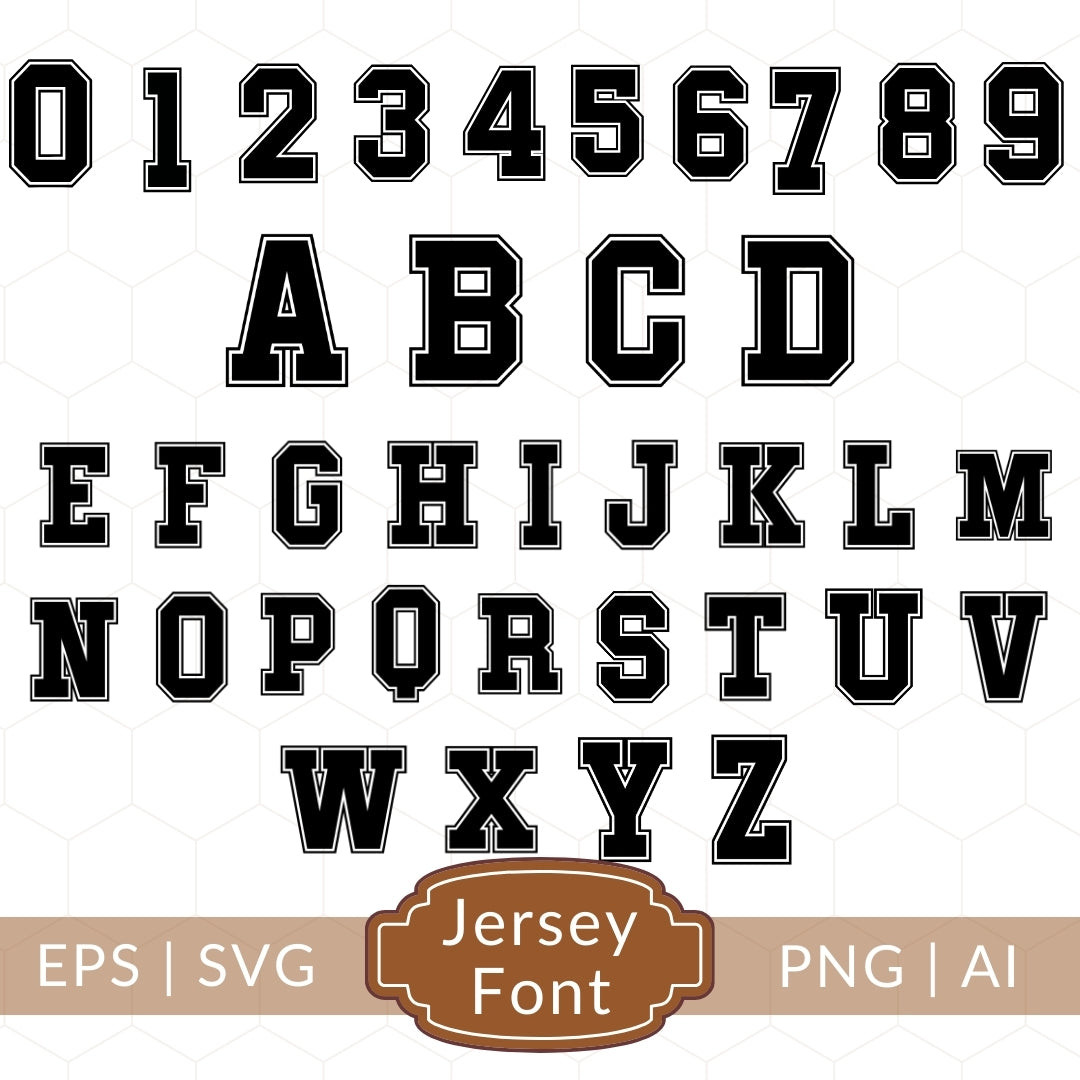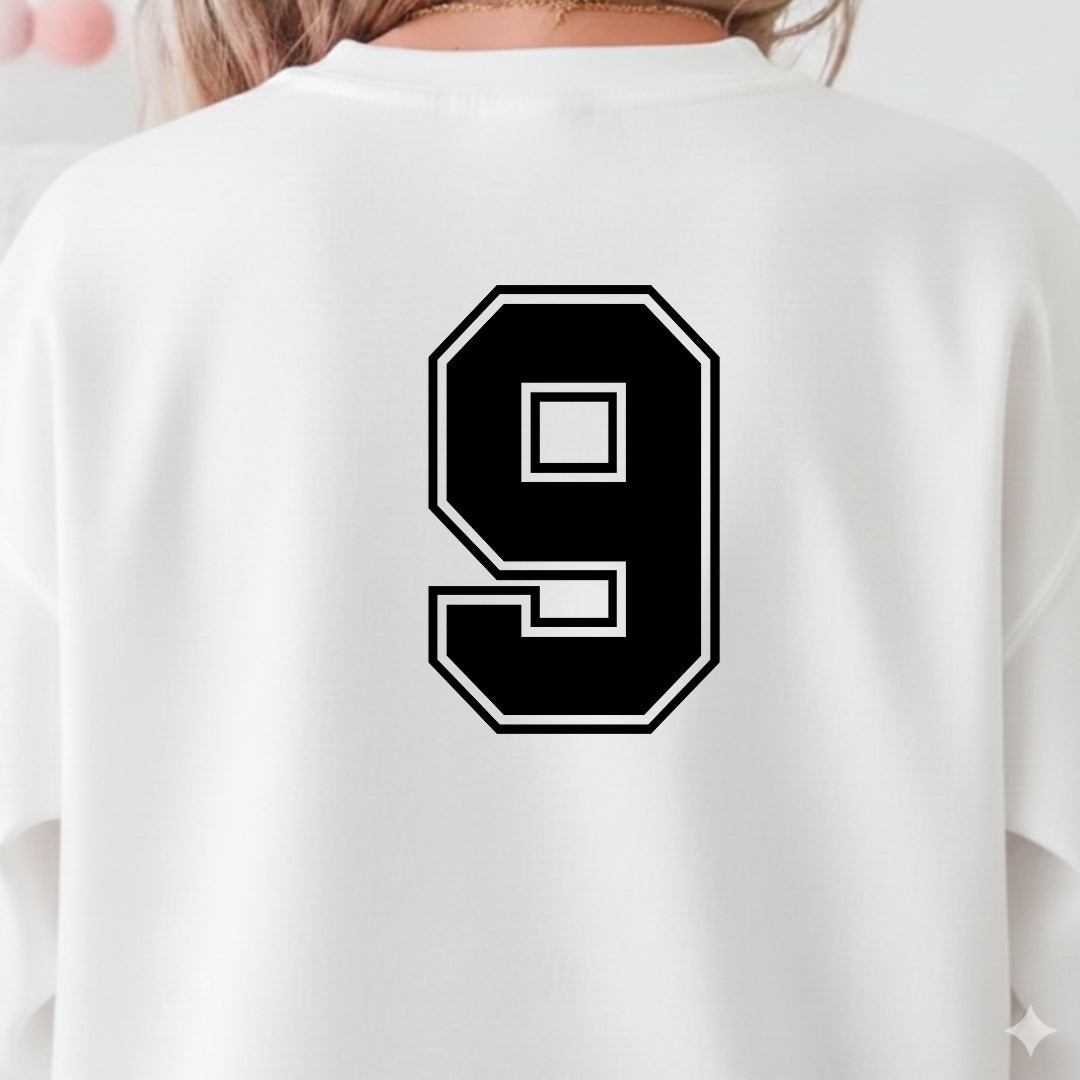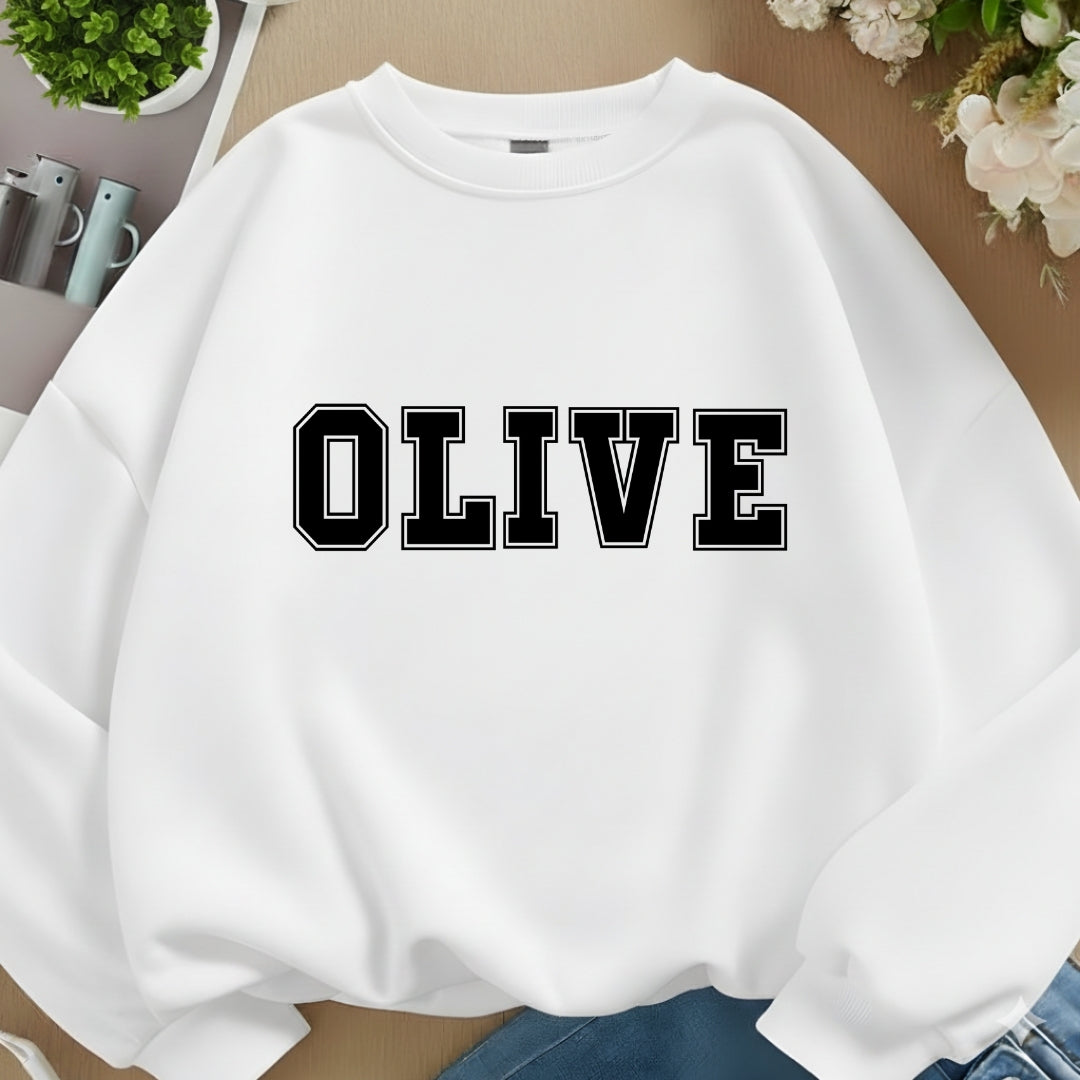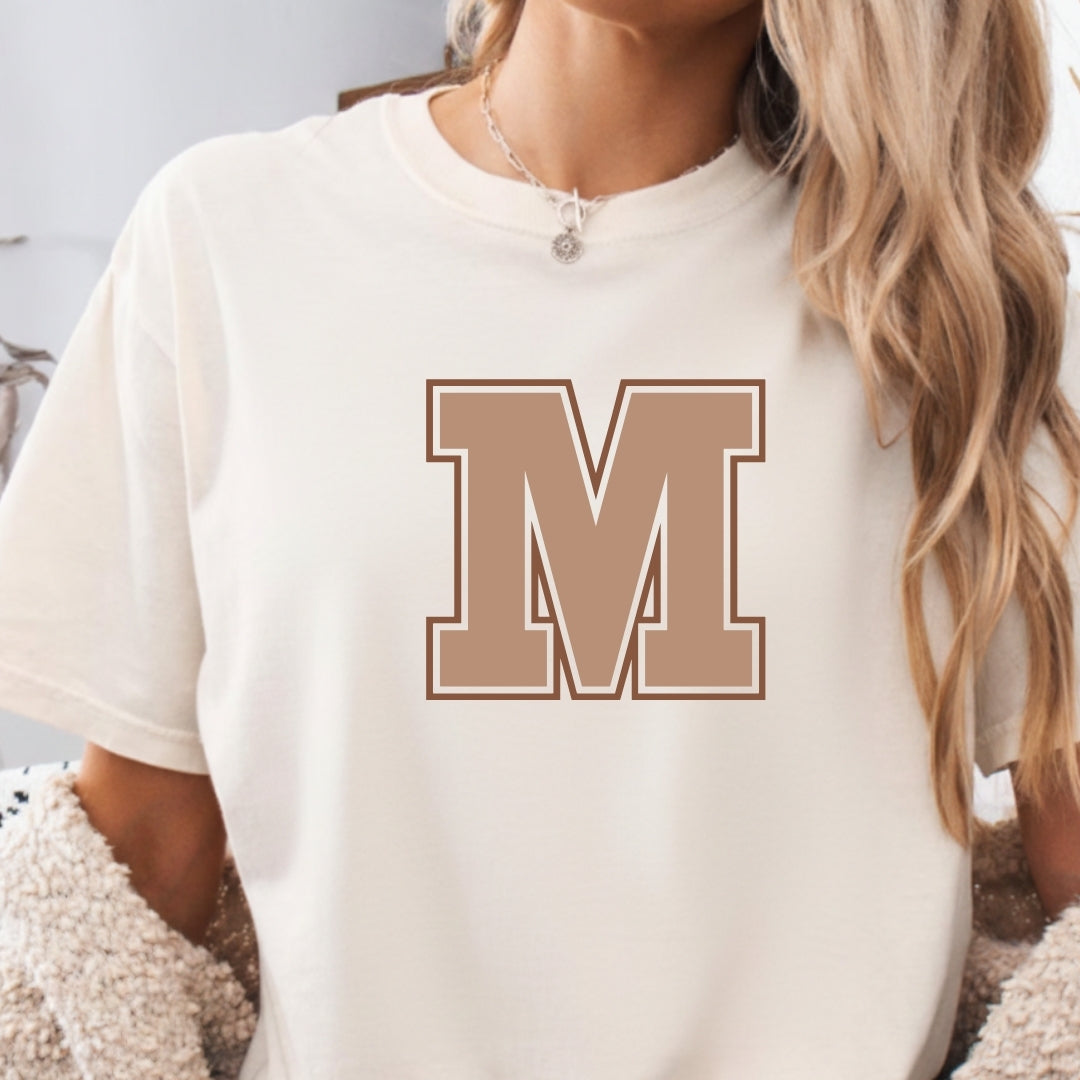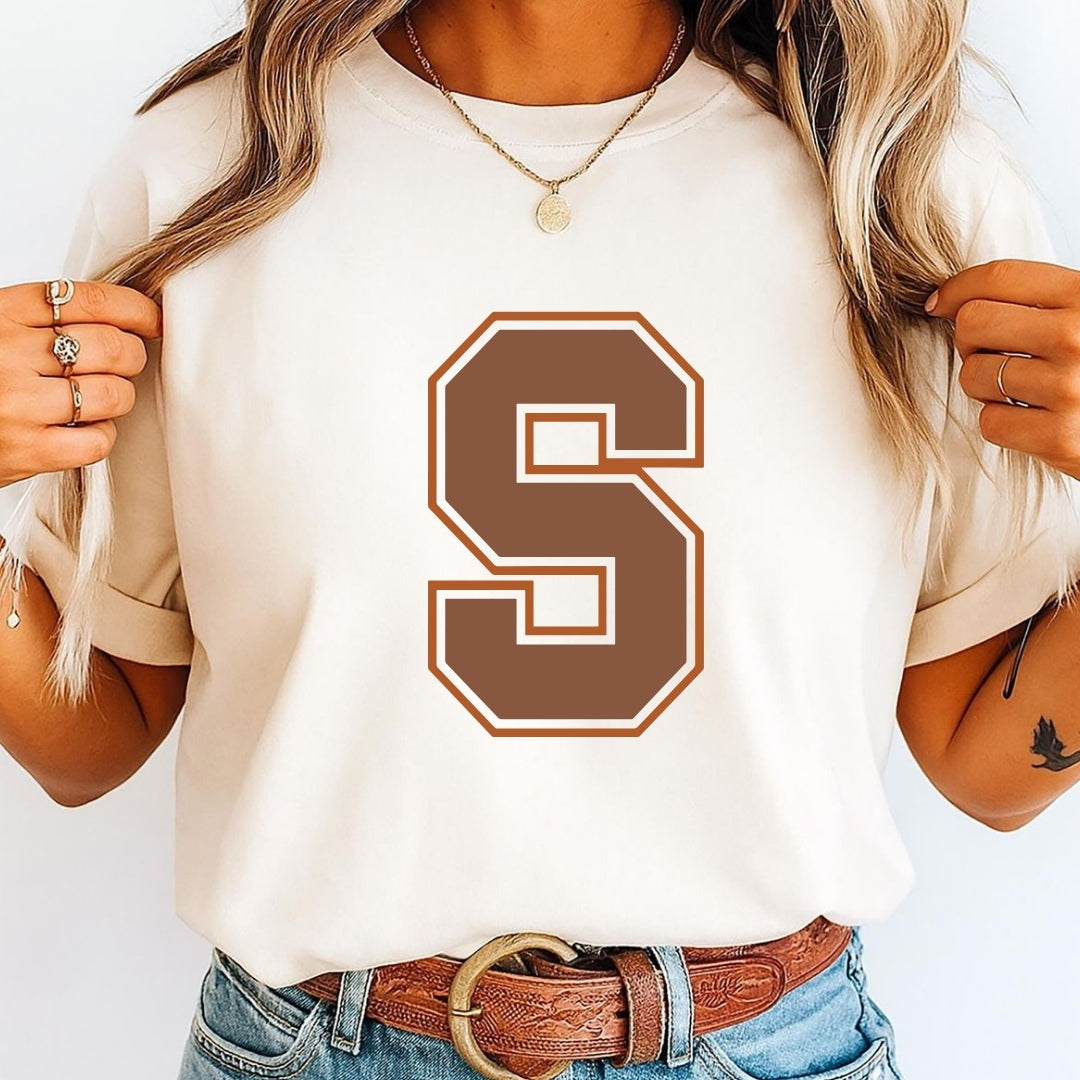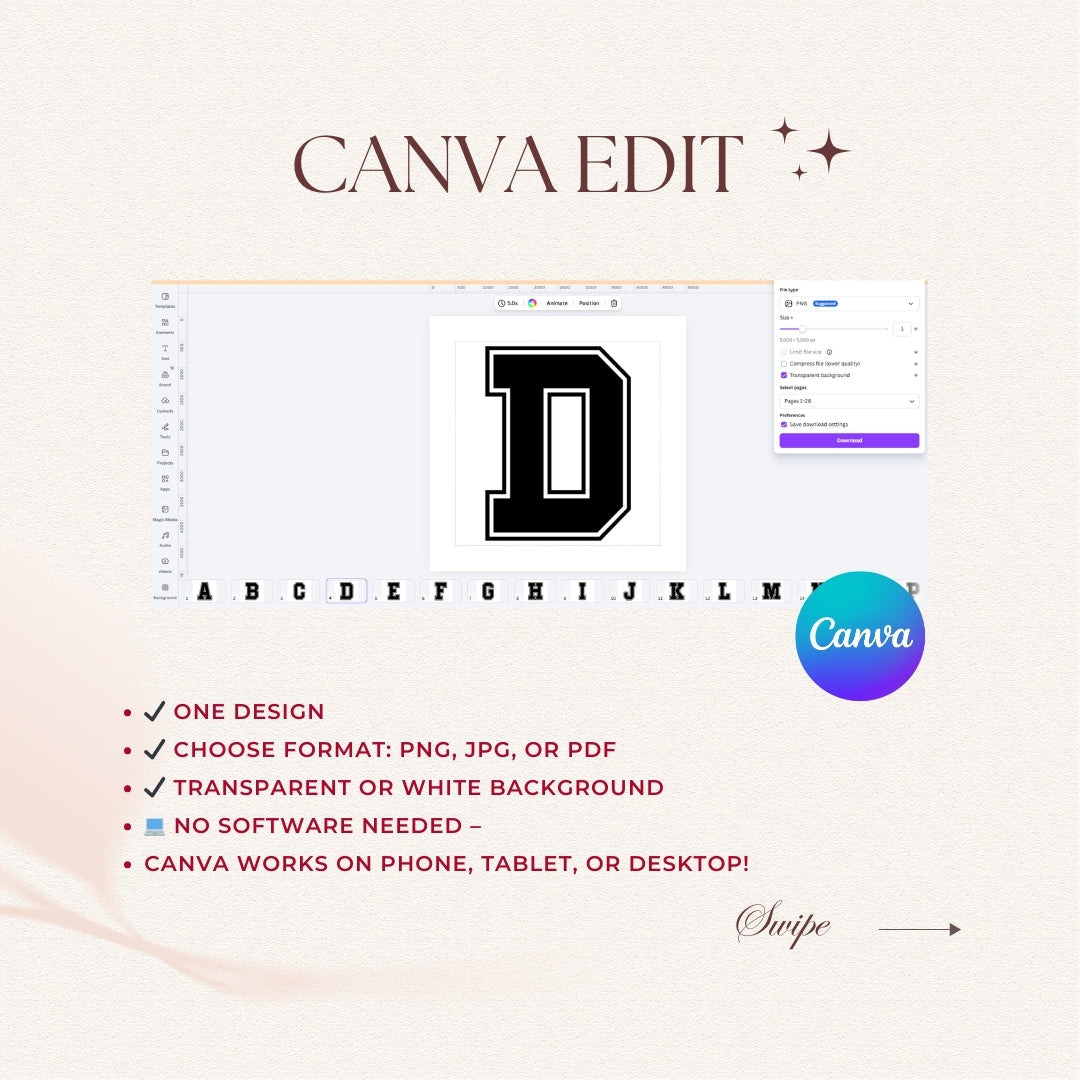
What is this design product?
This is a premium, high-resolution digital typography asset bundle featuring a classic, timeless take on traditional athletic jersey numbering, high school team customization, and university-style streetwear. Combining a complete numeric sequence from 0 to 9 with a full alphabetic character set from A to Z, it provides an essential toolkit for independent creators to easily build their own customized sports team apparel names, milestone numbers, and personalized monograms.
The raster PNG files are created at a professional, crisp 300 DPI high resolution. This ensures that the solid black core fills, sharp internal spacing gaps, and parallel outer athletic borders print with clean lines and absolute clarity, avoiding blurry edges or pixelation on your finished items.
Where and on what items can I use this design pack?
This typography set is incredibly versatile and optimized perfectly for tailgating events, stadium sportswear, league tournaments, or custom family reunion uniforms! It looks exceptional for spelling out custom last names on the back of sports jerseys, creating milestone graduation year shirts (like '26), or designing oversized collegiate chest pullovers, personalized tote bags, travel mugs, team water bottles, and locker decals.
Does it work on dark or bright colored clothing?
Absolutely. The structural framework provides fantastic versatility thanks to its multi-bordered style. While it provides an exceptionally clean and bold contrast on a classic white backdrop (as pictured), the built-in crisp white outline border ensures the black characters retain excellent legibility and pop perfectly when printed on bright or dark team colored fabrics, including solid red, royal blue, athletic grey, or forest green.